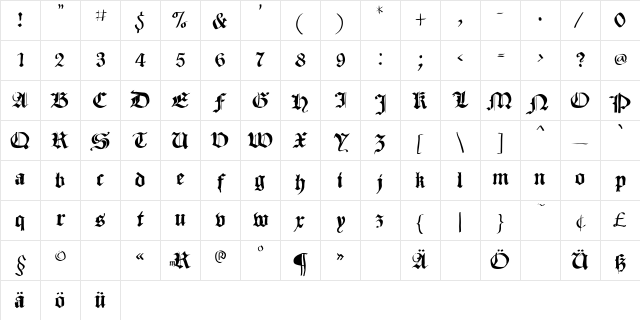
Complete SketchedCassiusBroken Regular glyph index. Displaying only characters natively supported by SketchedCassiusBroken Regular font.
SketchedCassiusBroken is a composed and adaptable typeface that performs quietly and consistently across a wide range of design contexts.